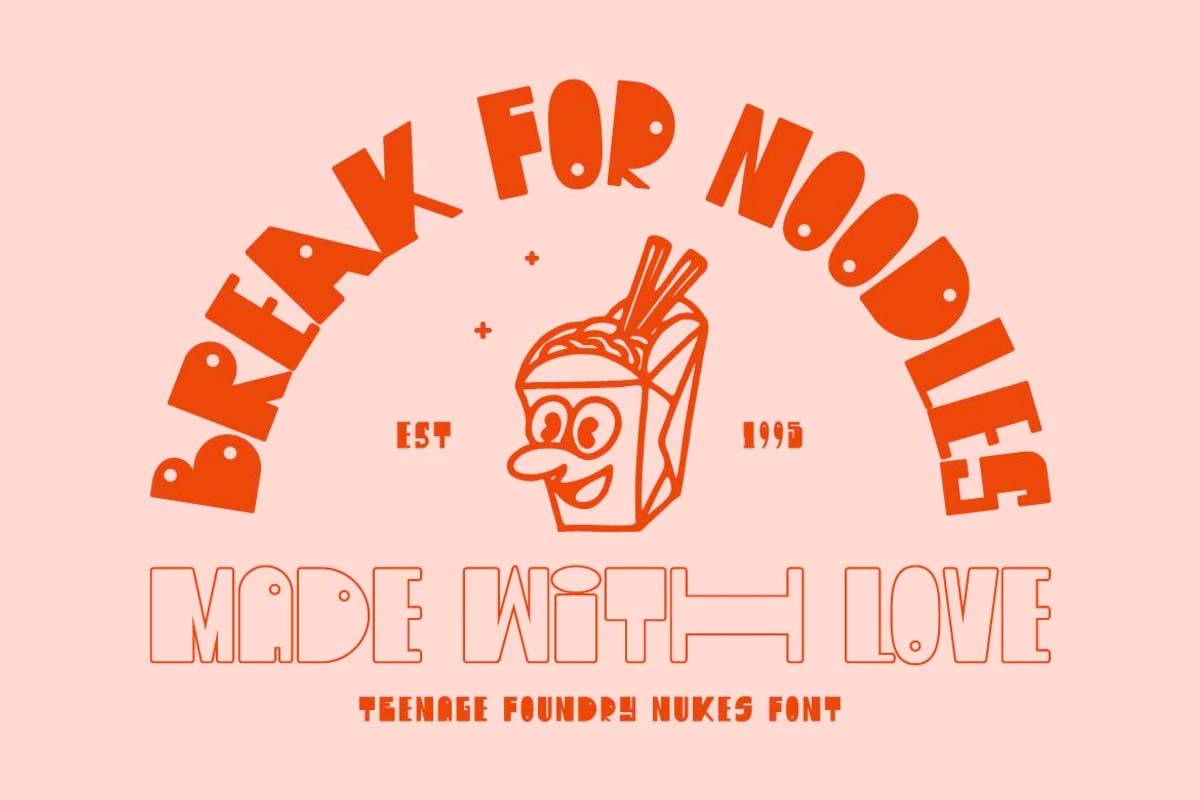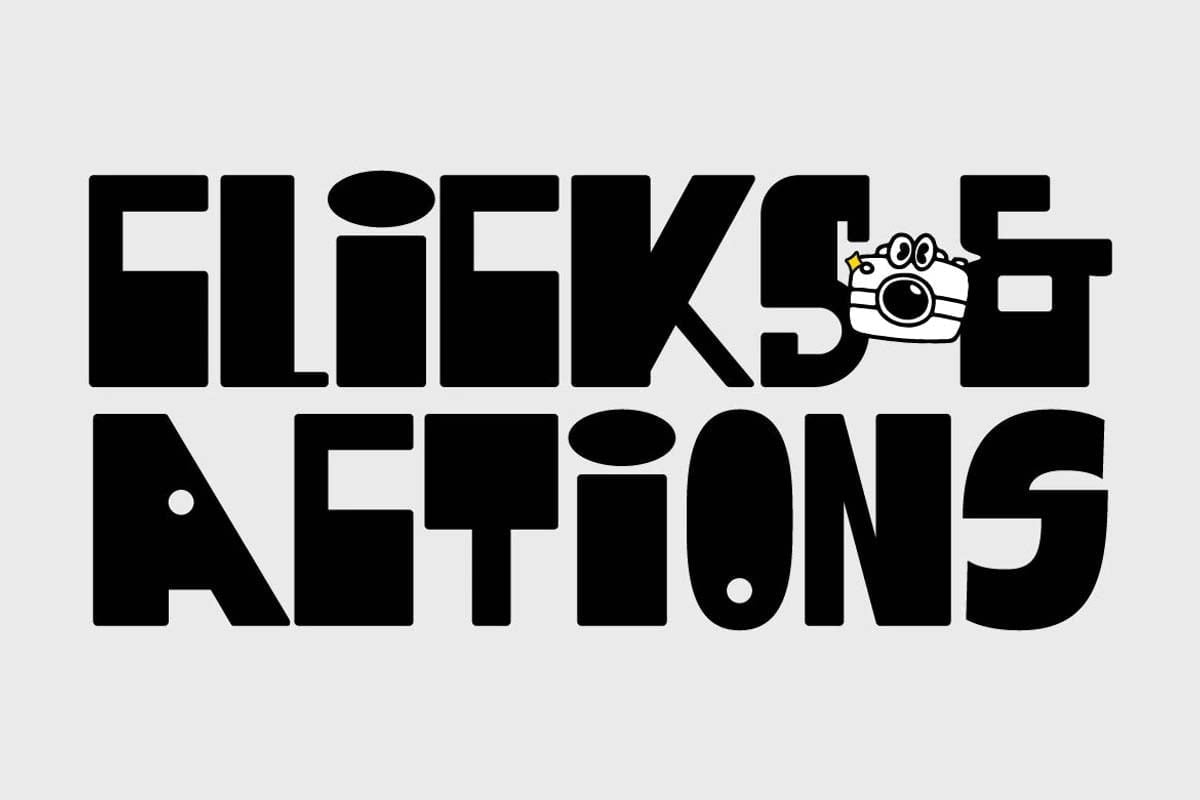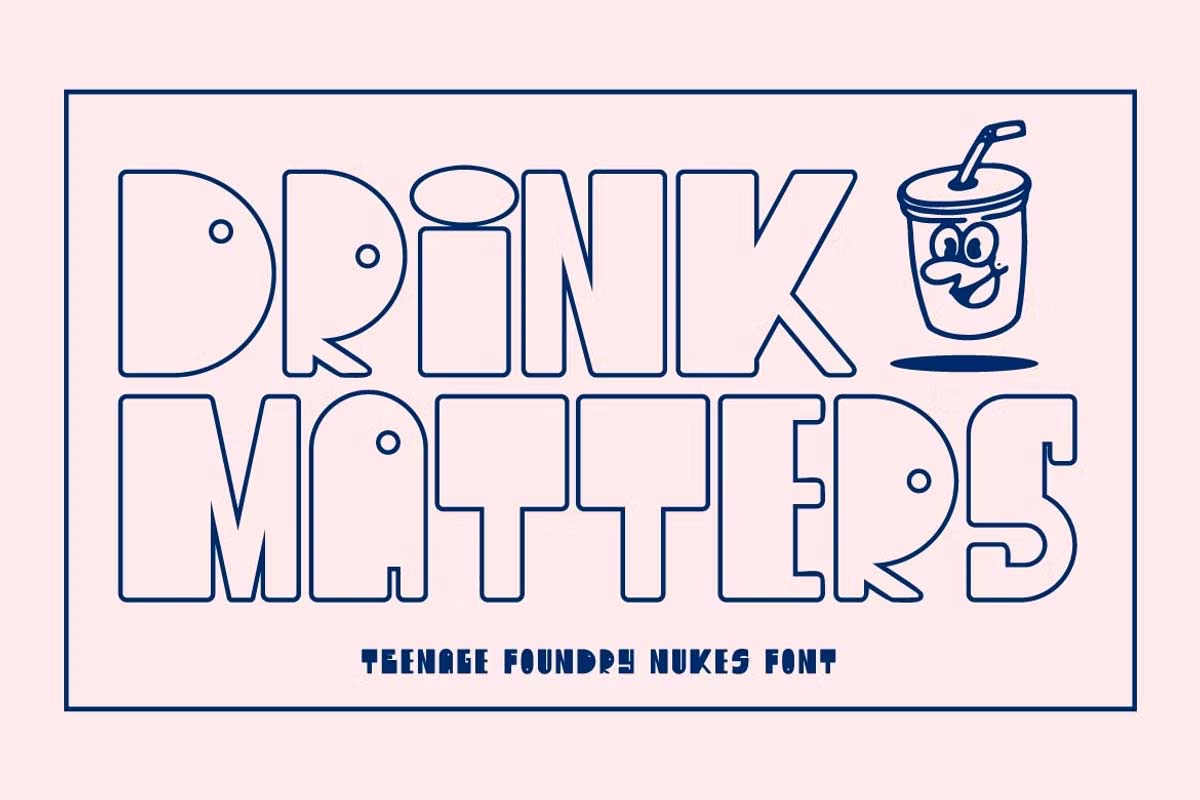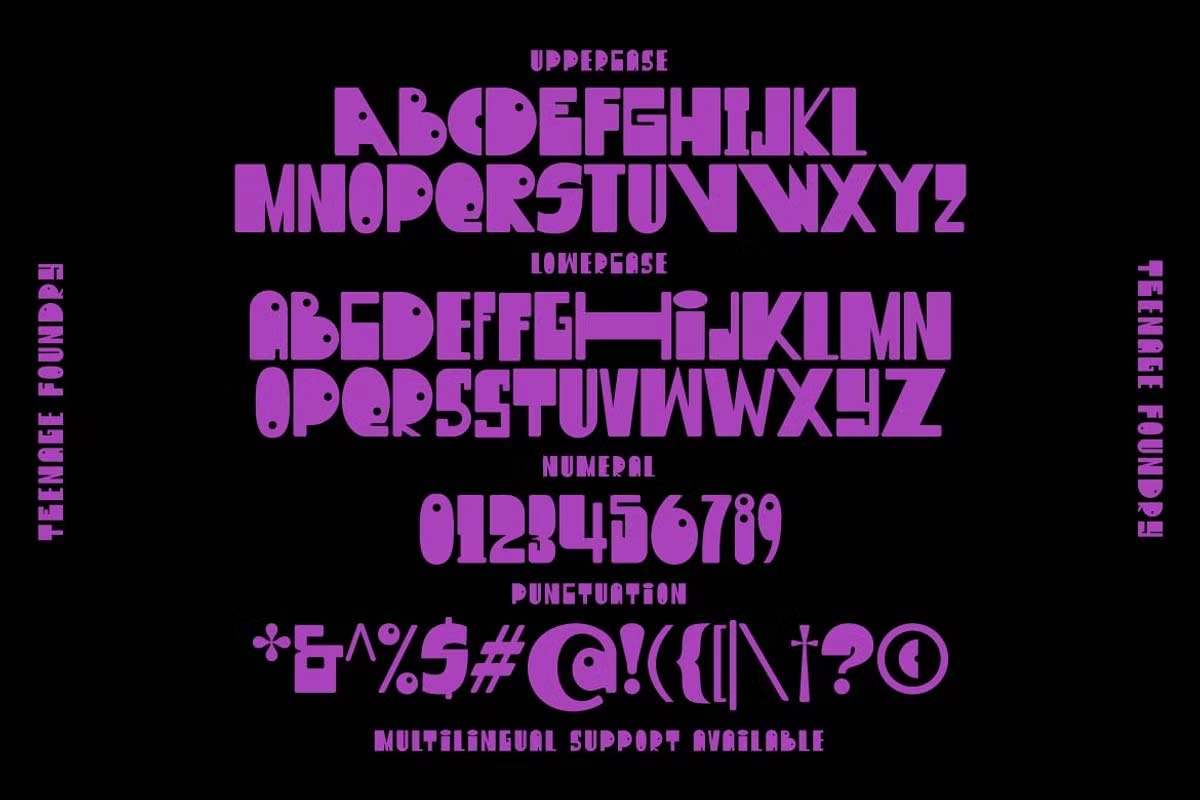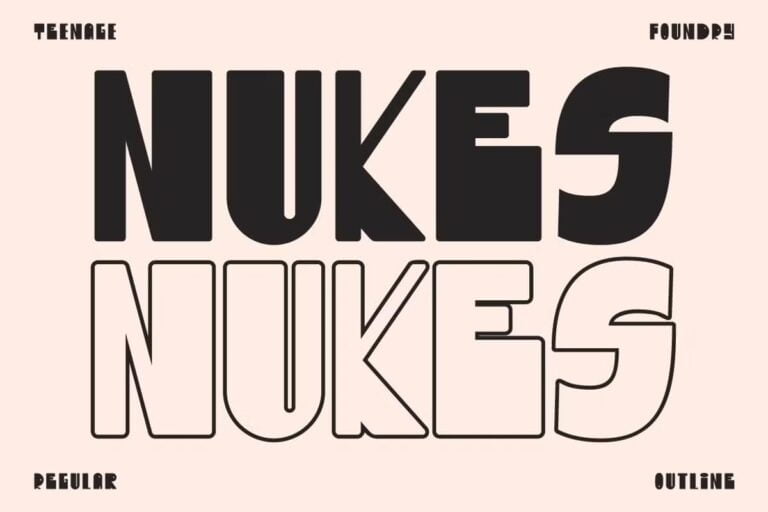
Introducing TF Nukes – the boldest display style font that will capture the attention of your audience and make your message stand out! This bold, strong font is perfect for headlines, titles, and any other text that needs to make a statement.
Nukes comes with a bonus of 9 illustrations that will take your designs to the next level. This illustration fits perfectly into the font and will give your project a cohesive and professional look.
A bold and striking font style will make your message impossible to ignore, while the bonus illustrations will add an extra layer of creativity to your design.